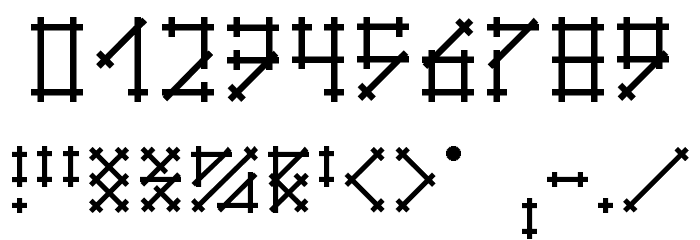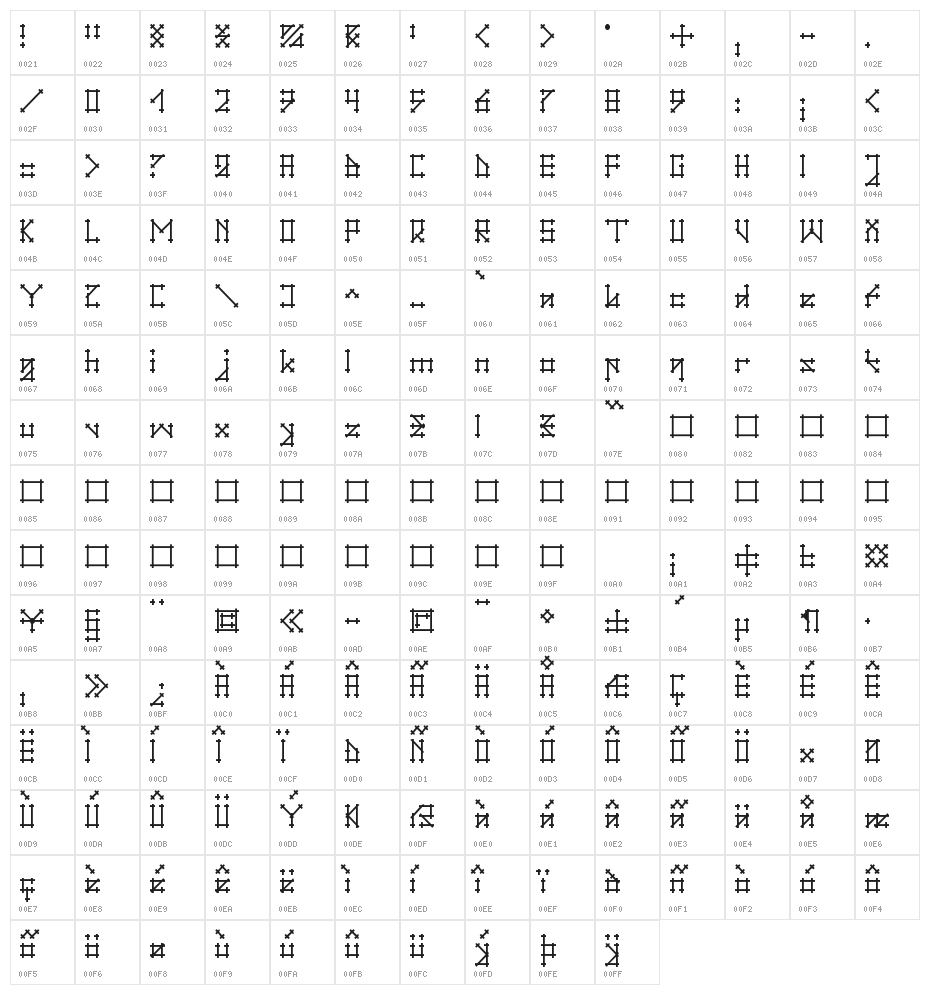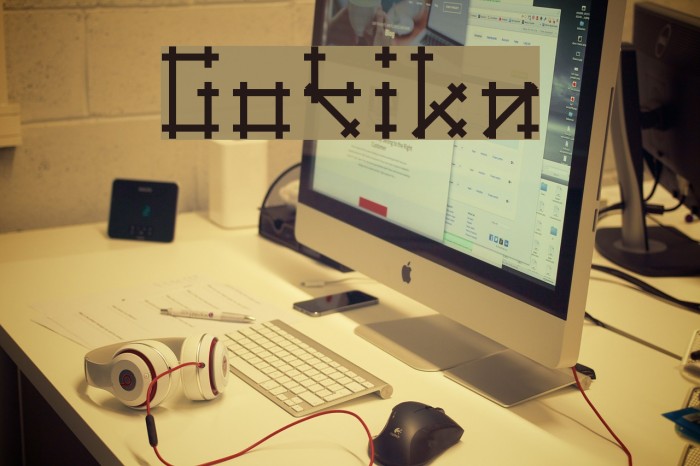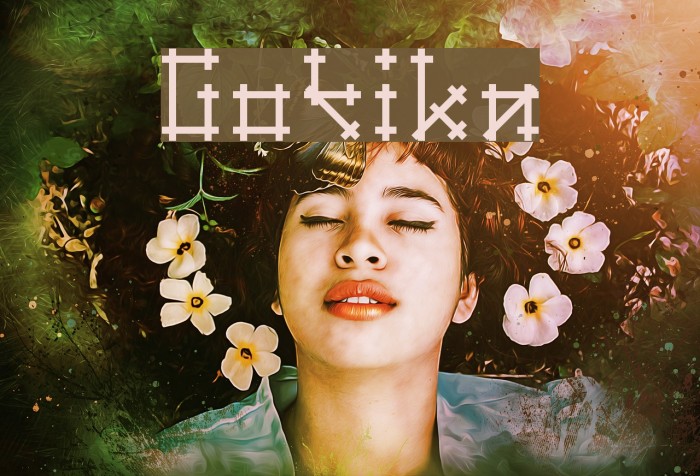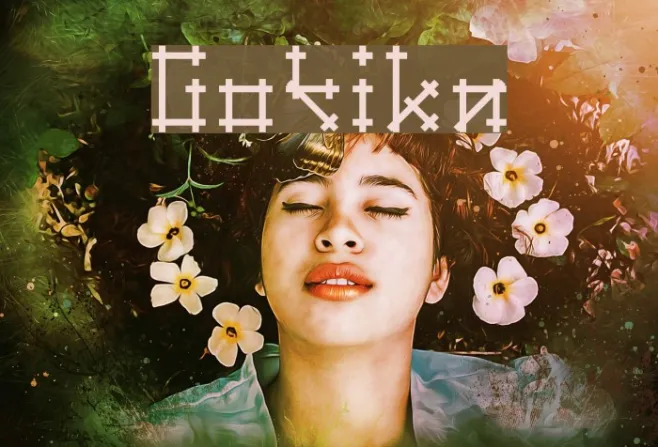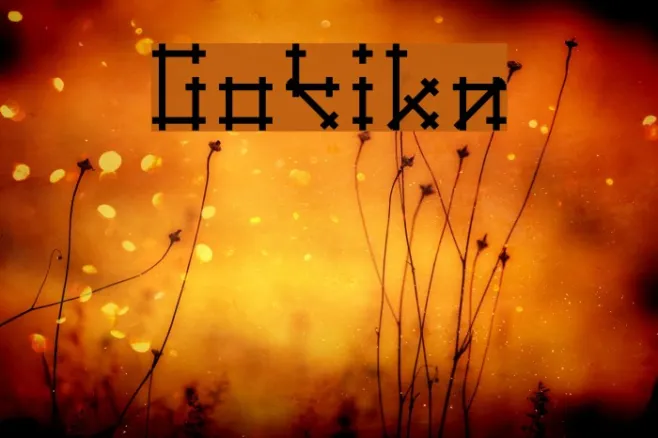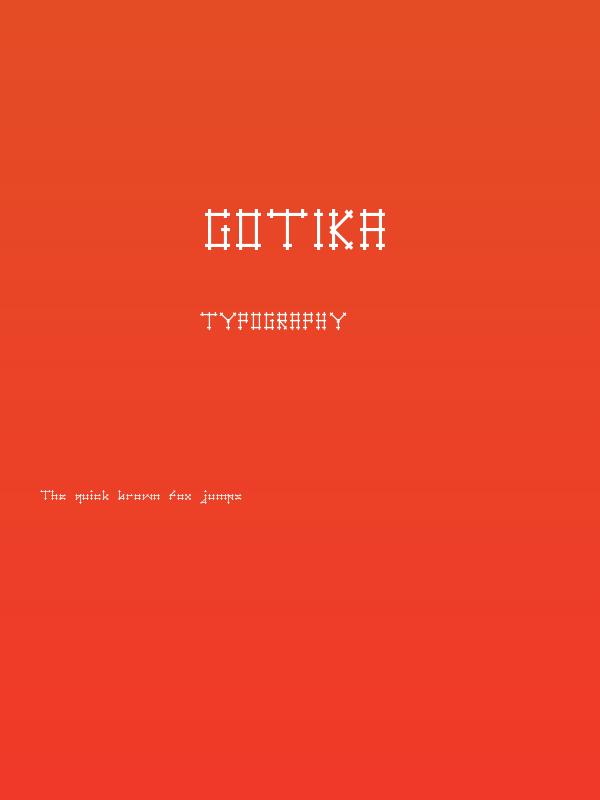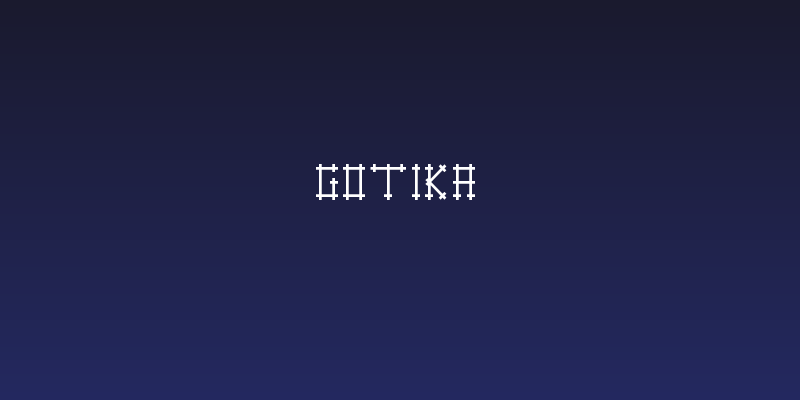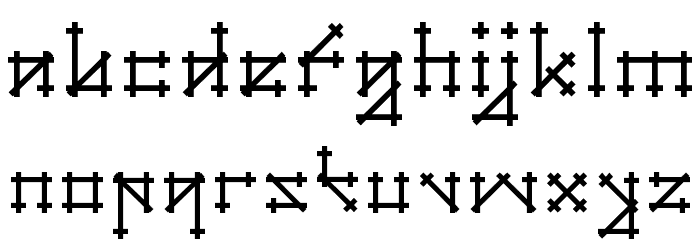
Gotika Font
Gotika Description
This font features a unique and intricate design, characterized by its geometric and angular shapes. Each letter is composed of straight lines and sharp angles, giving it a structured and mechanical appearance. The use of cross-like embellishments at the intersections of lines adds a decorative element, reminiscent of Gothic architecture. The font maintains a consistent stroke width throughout, contributing to its uniform and cohesive look. It is highly stylized, making it suitable for projects that require a distinctive and bold visual impact.
| Proposed Projects | Ideal for use in branding, posters, album covers, and any design that requires a bold, distinctive typeface. |